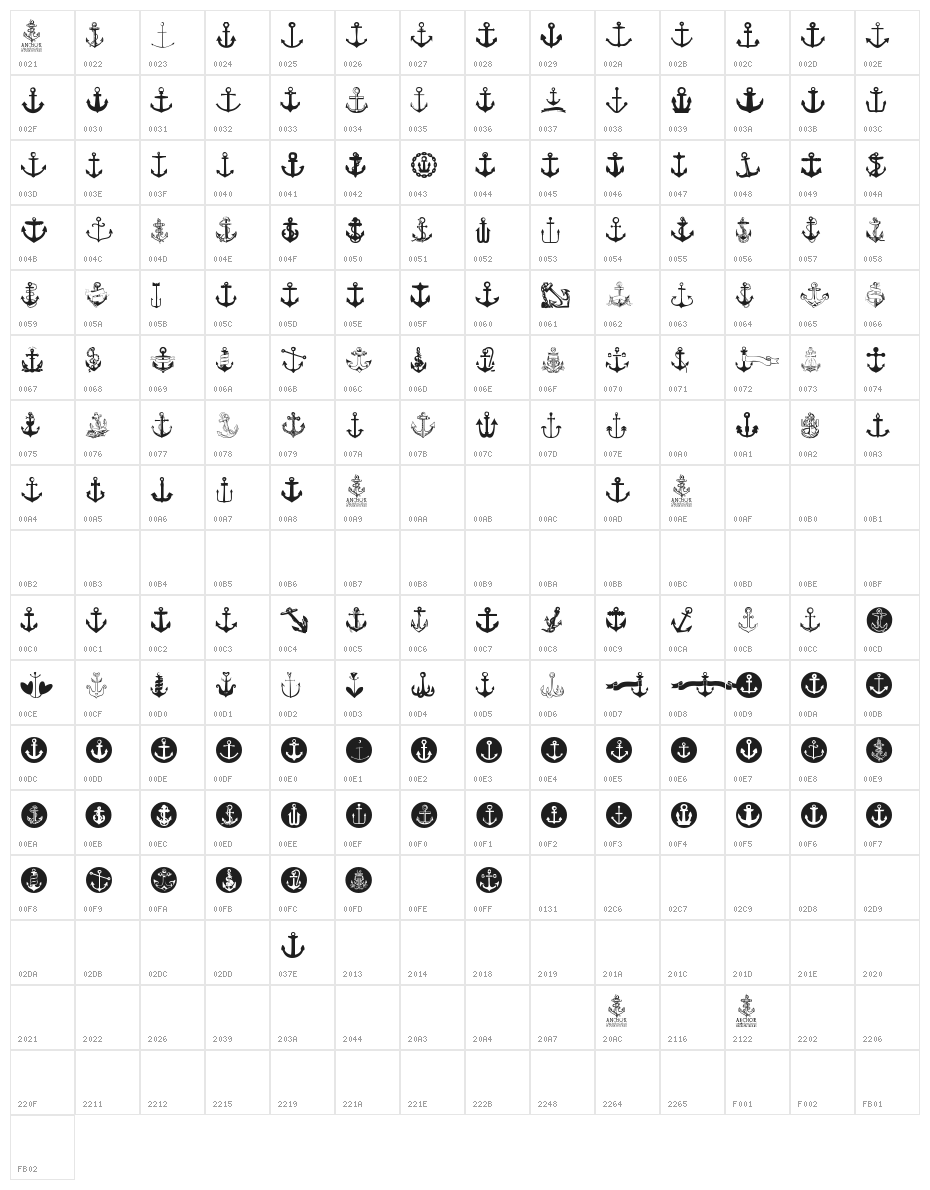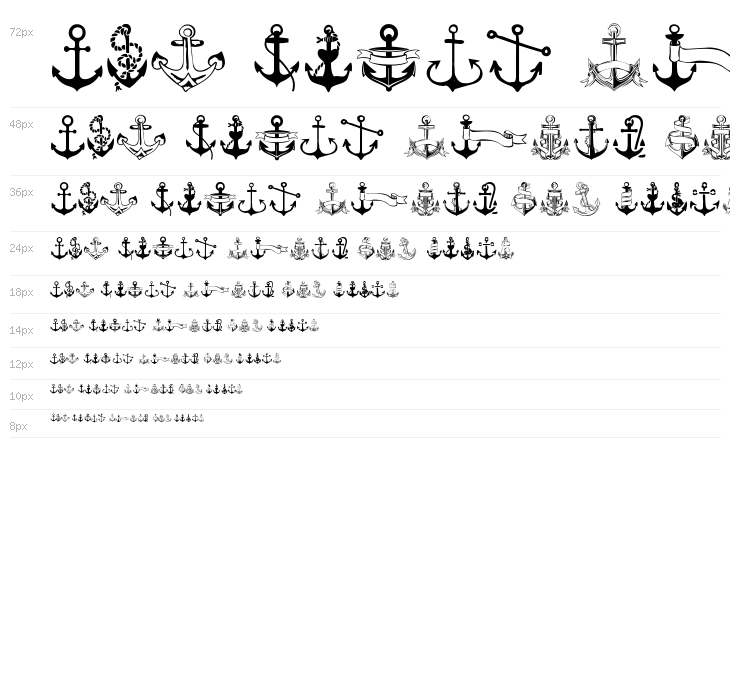
Anchor Font
| Gesamtstil | Modern, Decorative |
| Anwendungsfall | Logos, Posters, Branding |
| Vorgeschlagene Projekte | Ideal for branding, logos, posters, and any project needing a nautical or adventurous theme. |